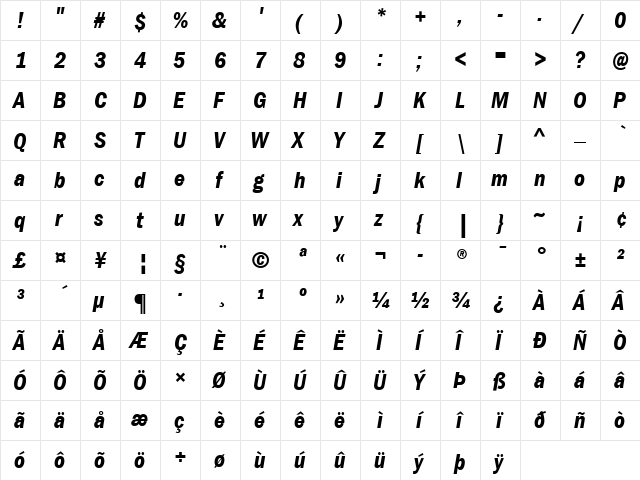
ITCFranklinGothic LT BookCn Bold Italic Font Preview
Design Context for ITCFranklinGothic LT BookCn Typeface
ITCFranklinGothic LT BookCn takes a clean, functional approach — its unadorned letterforms prioritise legibility and work reliably across screen and print environments. The slanted form adds forward momentum and visual energy. Its bold stroke weight gives it real presence on the page.
Well-suited to navigation labels, product packaging, and anywhere legibility at scale is essential.
Font Pairing: Use ITCFranklinGothic LT BookCn for headlines alongside a lighter-weight sans or serif for body copy to establish clear visual hierarchy.
Pro Tip: Use ITCFranklinGothic LT BookCn with generous tracking and line-height for the most luxurious effect — light sans-serifs reward spacious, considered layouts.